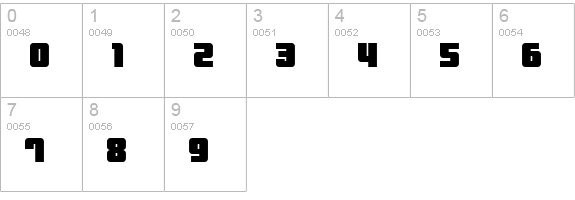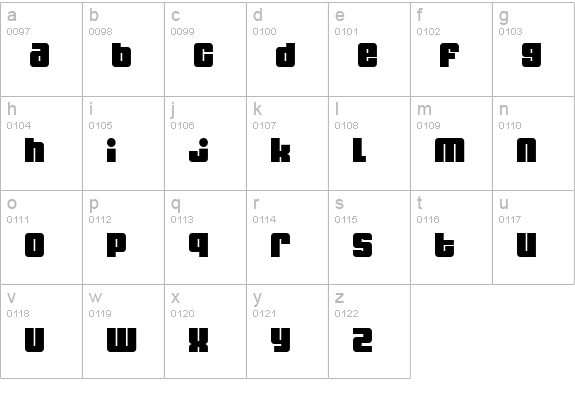
Dynomite Font Details
Introducing Dynomite font, a bold and dynamic typeface that exudes creativity and energy. With its unique design and eye-catching appeal, Dynomite is perfect for making a statement in any project. Whether you're designing a poster, logo, or website, this versatile font will surely make your content stand out from the crowd. What sets Dynomite apart is its playful yet modern style, making it a favorite choice for designers looking to add a touch of fun and excitement to their work. The strong and vibrant letterforms of Dynomite will instantly capture the attention of your audience and leave a lasting impression. Best of all, Dynomite is available for free download at FontsMarket.com, so you can easily access this amazing font and incorporate it into your projects without any hassle. Don't miss out on the opportunity to enhance your designs with the dynamic and captivating Dynomite font today!